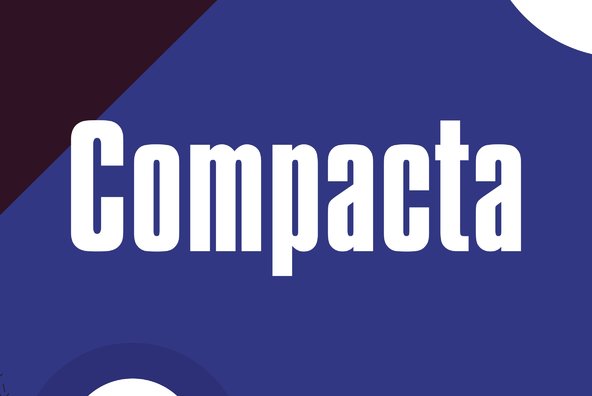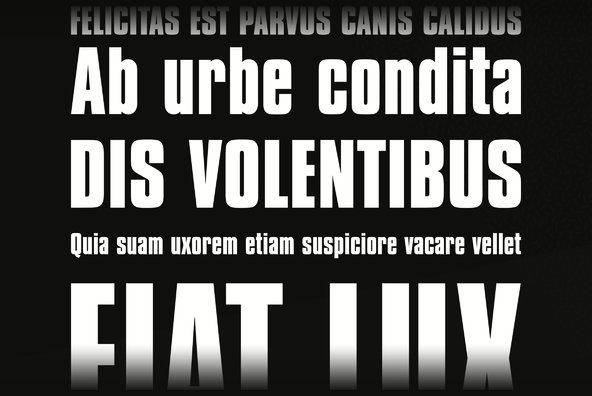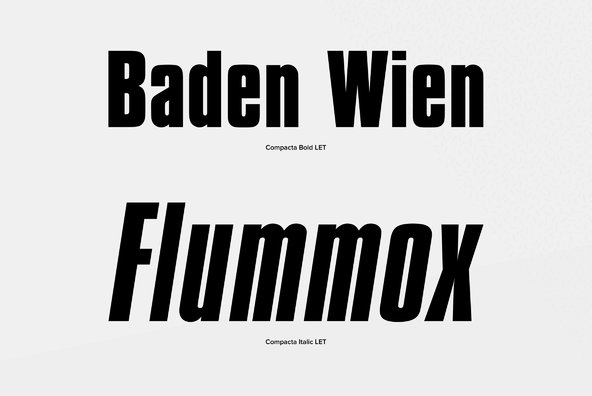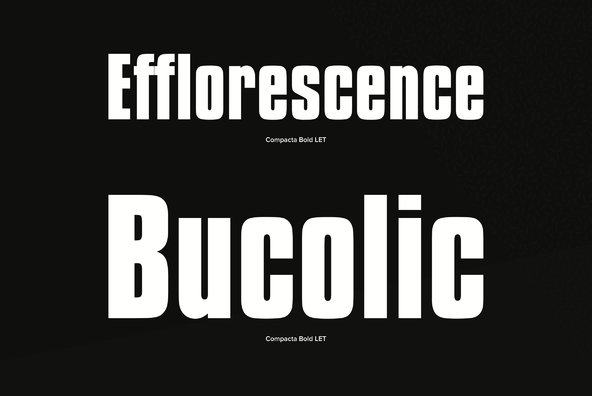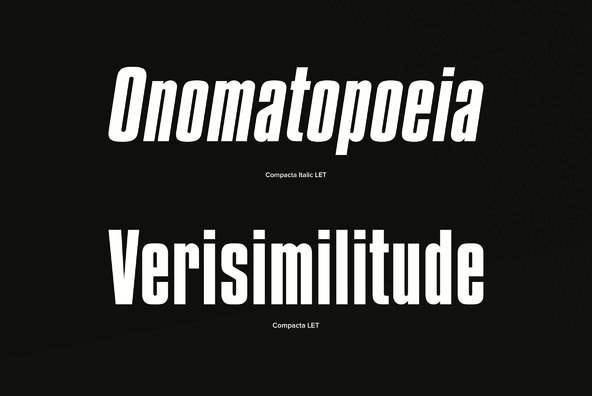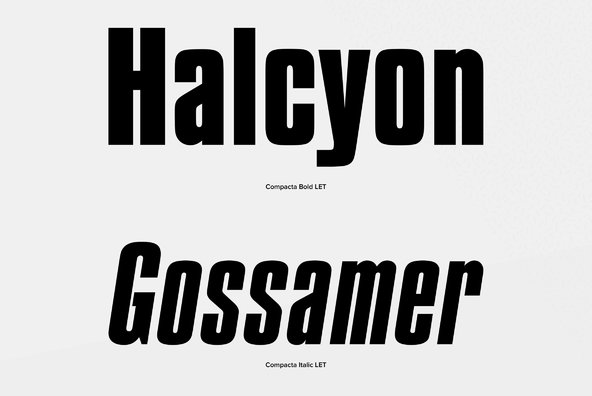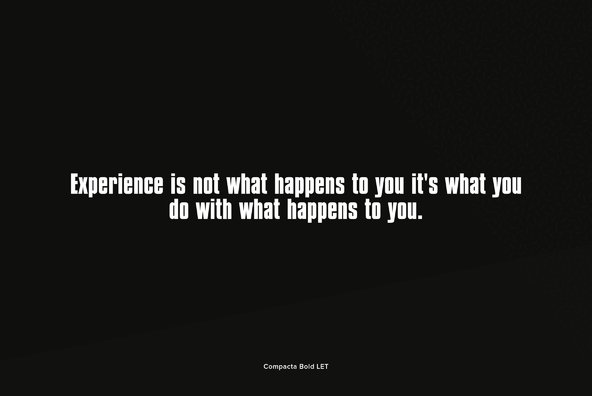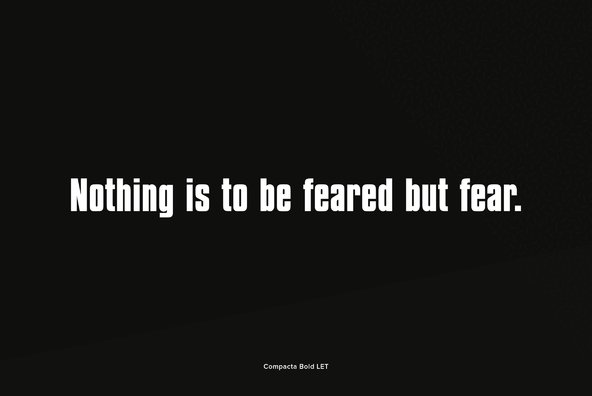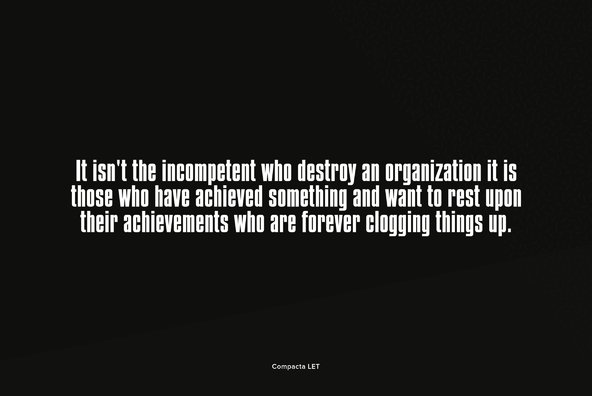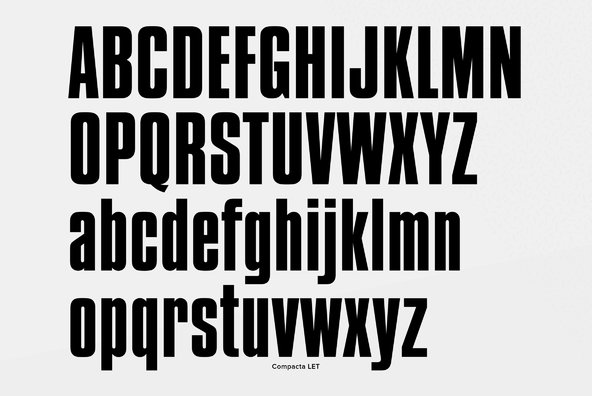
A strong geometric style specifically designed for very close letter and word spacing. This condensed typeface is ideally suited for large headline settings where space is limited. Created by the late Fred Lambert.